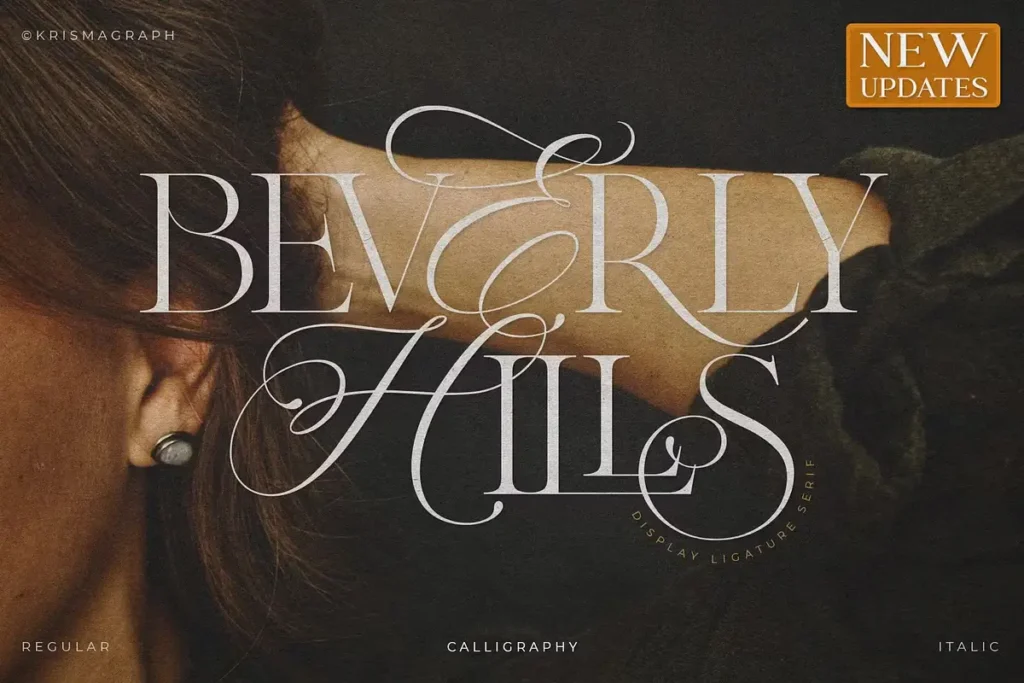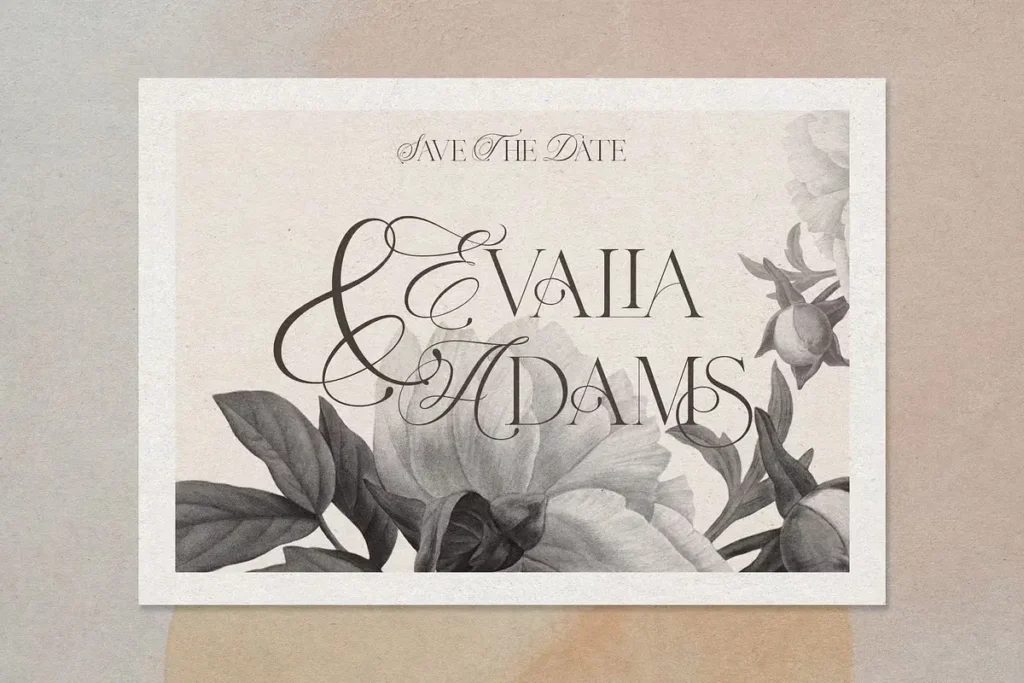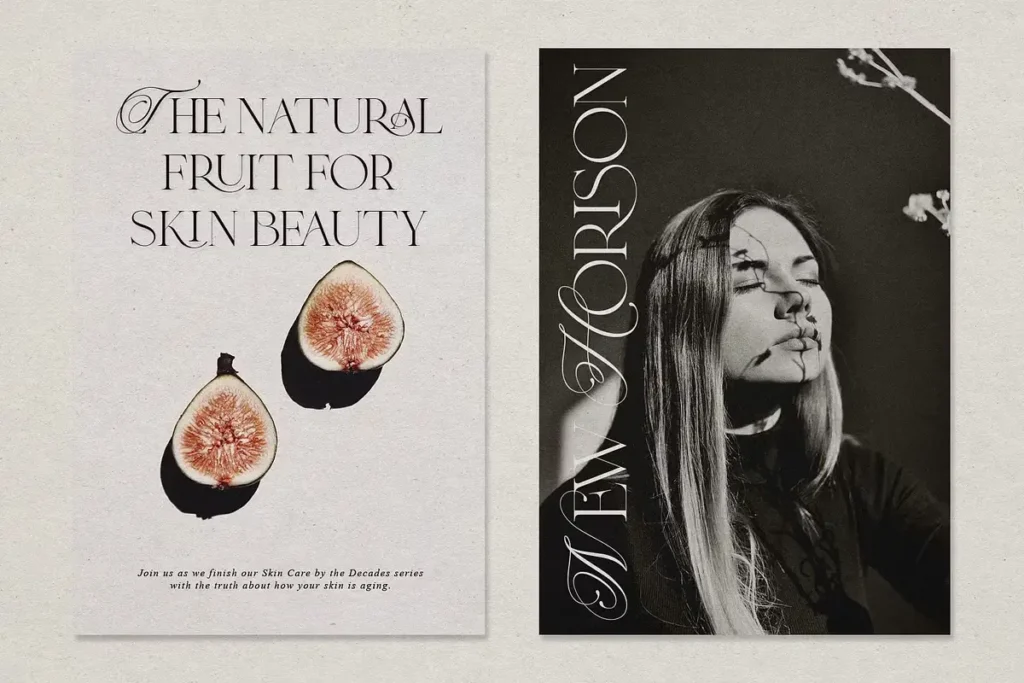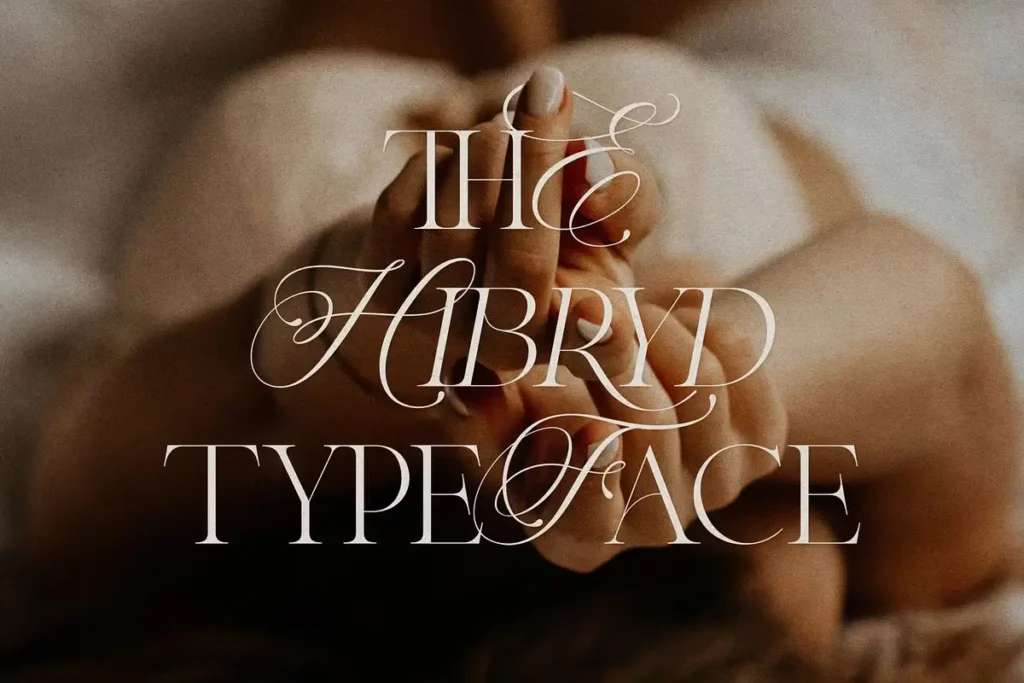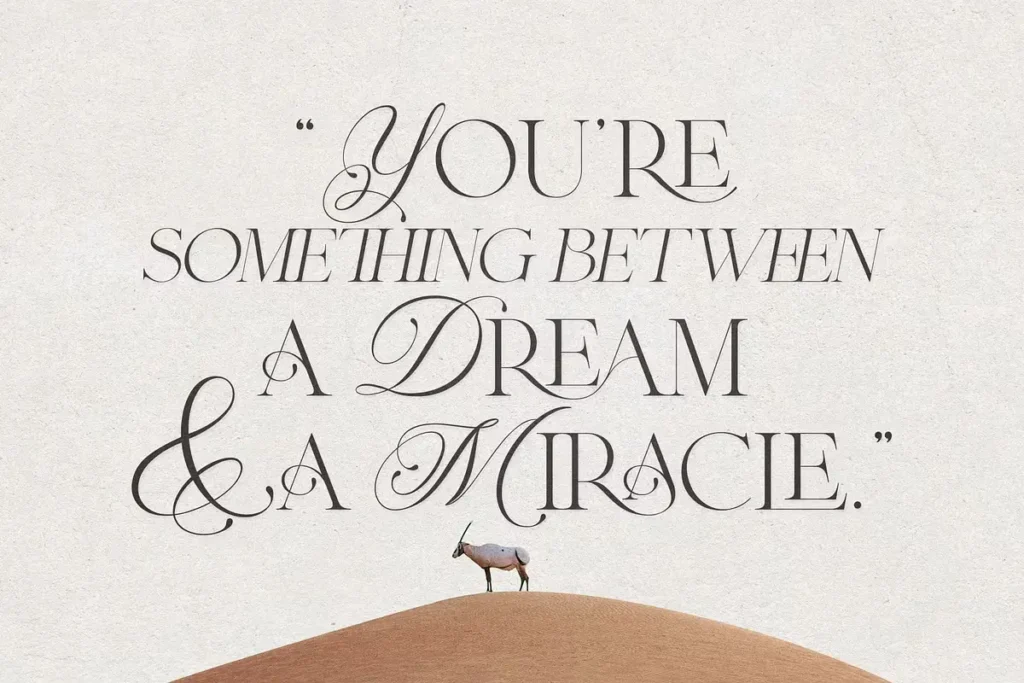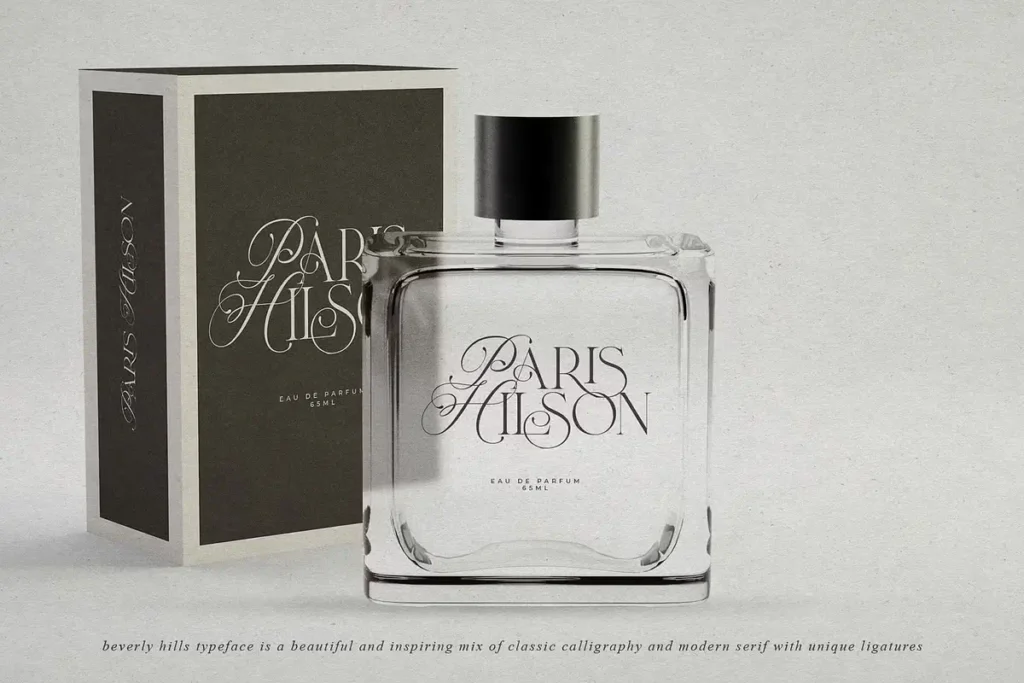
Beverly Hills Ligature Serif Font
Beverly Hills ligature serif font with elegant calligraphy details
Beverly Hills blends classic charm with a crisp, modern edge. It’s a ligature serif font with three styles—Regular, Italic, and Calligraphy—that feel both elegant and fresh. With graceful calligraphic curves and a contemporary serif base, it brings refinement to any design while keeping it confidently current.
Refined Details, Seamless Flow
What makes Beverly Hills stand out is its attention to flow and form. Each character feels thoughtfully shaped, with clean lines and subtle curves that echo traditional calligraphy. The real highlight is the set of 56 unique ligatures. They connect letters naturally, adding rhythm and sophistication without overwhelming the design. Whether used in its regular, italic, or calligraphy form, the font maintains clarity and a strong visual identity—making it versatile for modern needs.
Elegant Versatility in Action
This font was designed to shine in short text: think headlines, logos, or elegant packaging. It works beautifully in branding projects where personality matters but clutter doesn’t belong. Whether you’re building a refined wedding brand, crafting a stylish moodboard, or laying out editorial content, Beverly Hills adds just the right tone—confident, timeless, and expressive.
Ideal for:
• Wedding and event stationery
• Logo and brand identity
• Editorial design and magazine spreads
• Product packaging and labels
• Website headers and hero sections
• Social media quotes and title graphics
Beverly Hills font showcasing hybrid serif and calligraphy style
Beverly Hills ligature serif font for romantic wedding stationery
Modern editorial look with Beverly Hills elegant serif font
Inspirational quote in Beverly Hills ligature serif typeface
Modern product label with Beverly Hills ligature typography
Quiet Luxury, Built In
Beverly Hills has that rare balance: it feels luxurious without trying too hard. It carries an upscale sensibility while staying light on its feet. For designers who want a serif font with the grace of calligraphy and the modernity of sleek ligatures, this one delivers. Whether you’re going for vintage charm or contemporary style, it adapts beautifully.